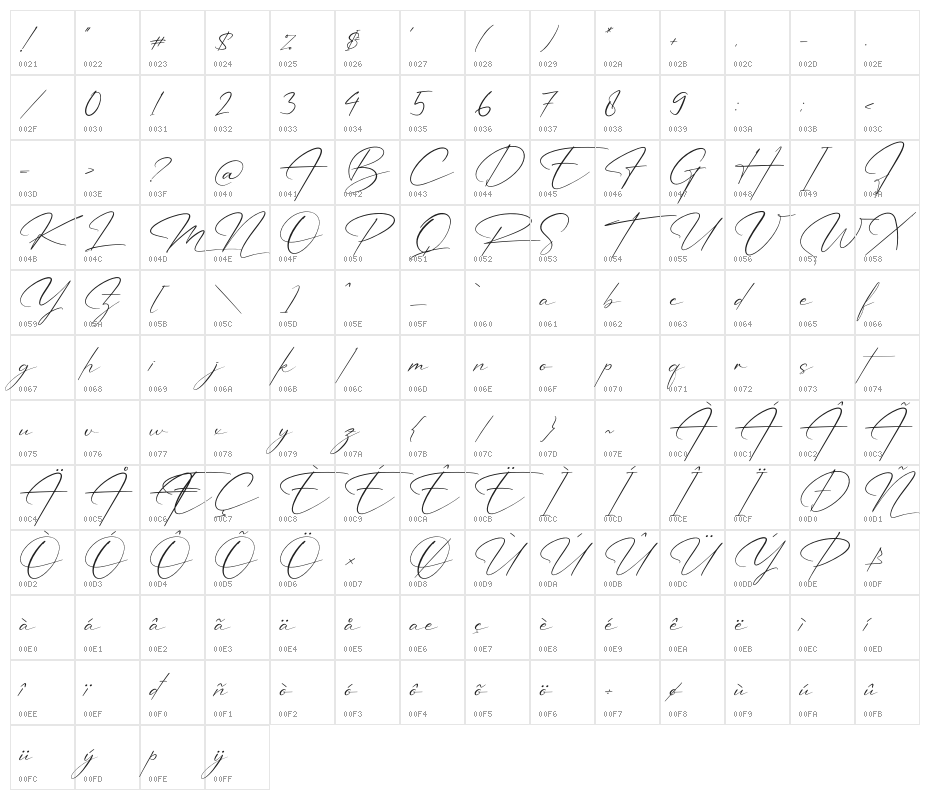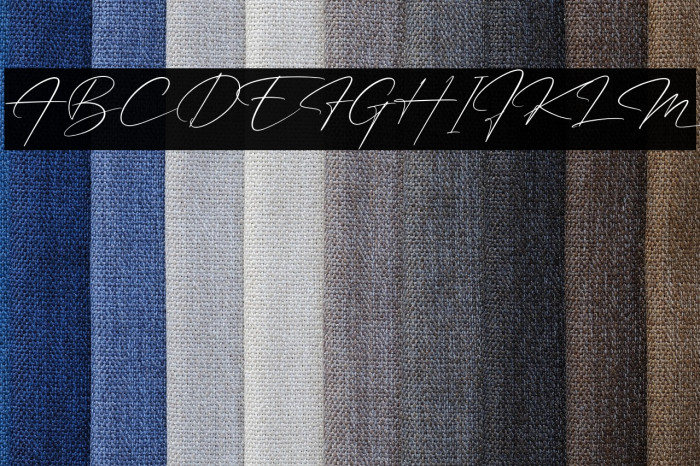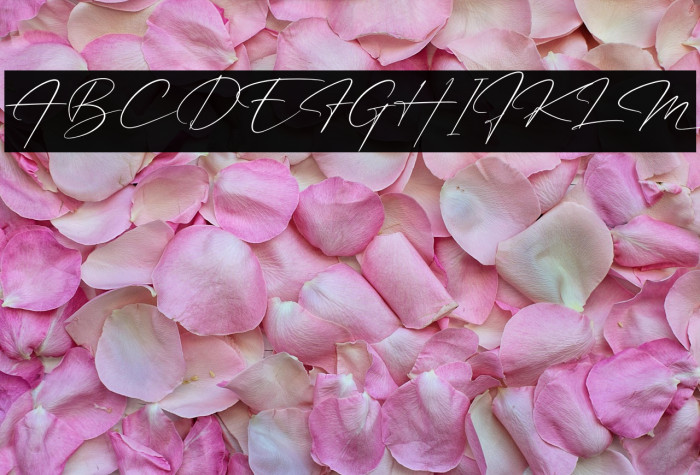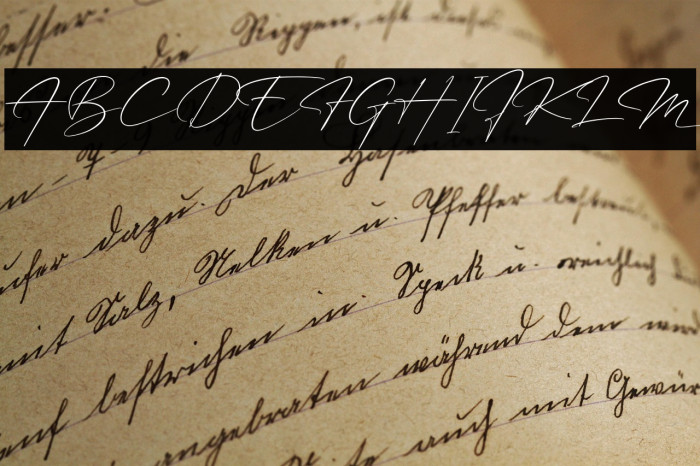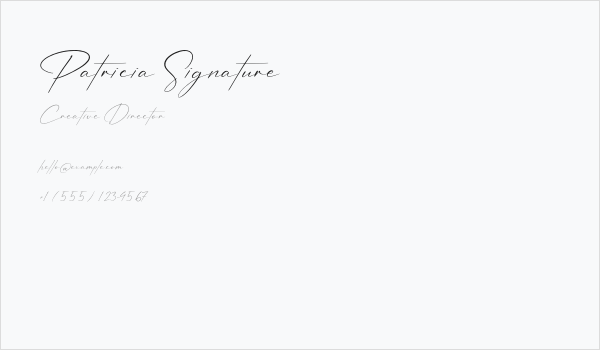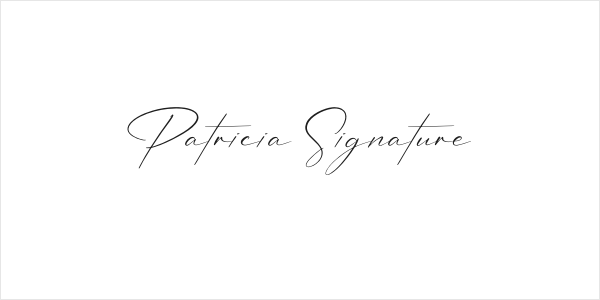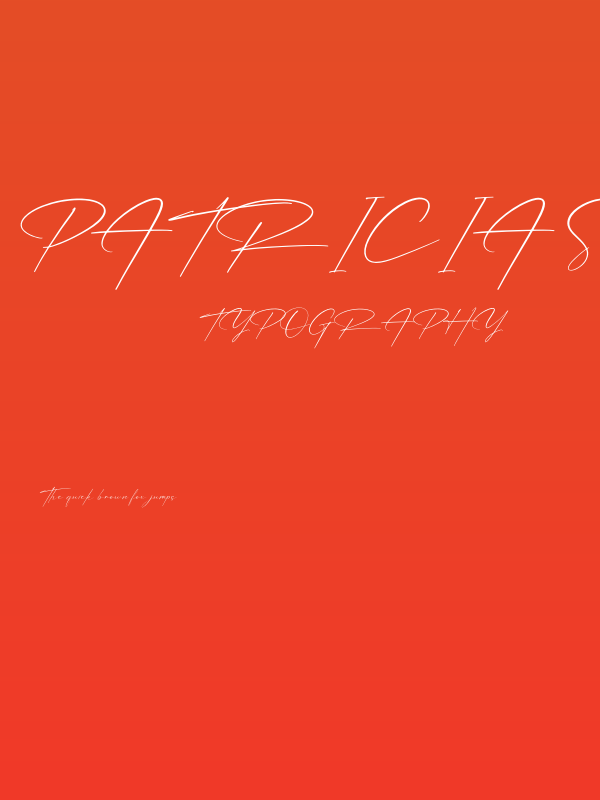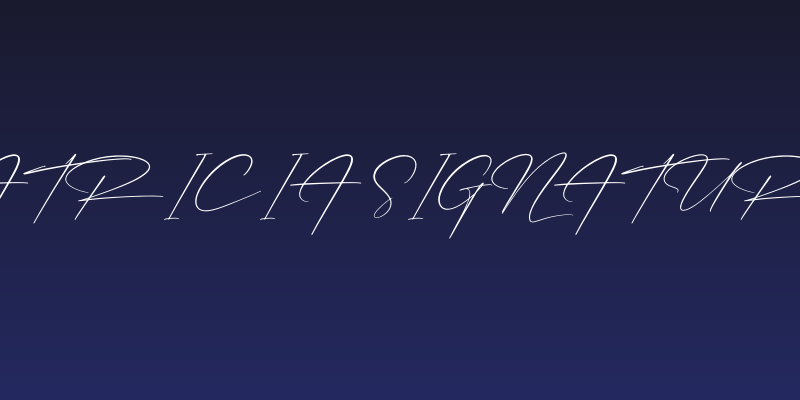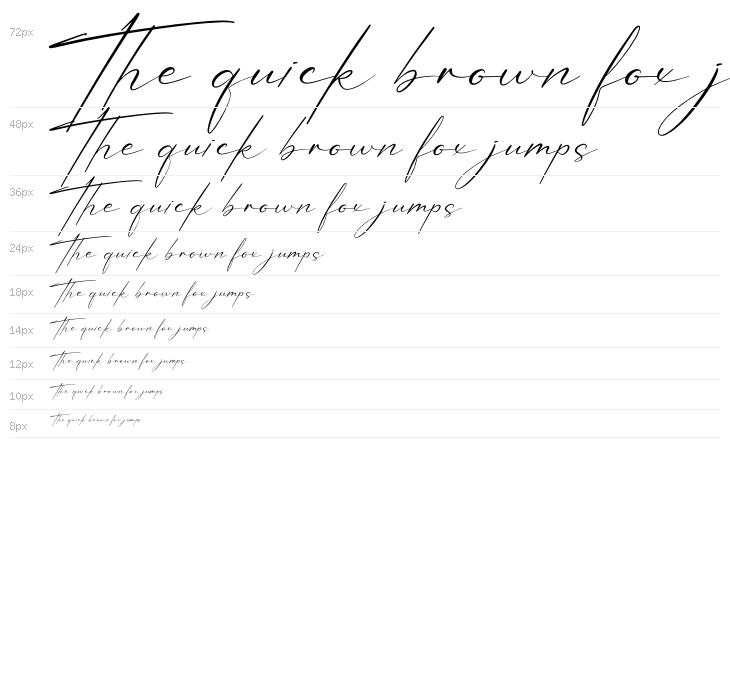
Patricia Signature Font
Patricia Signature Description
This font exudes elegance and sophistication with its fluid, cursive style. The letters are connected seamlessly, creating a natural flow that mimics the strokes of a handwritten signature. The uppercase letters are slightly more elaborate, with graceful loops and swirls, while the lowercase letters maintain a consistent, smooth rhythm. The numerals are clear and distinct, maintaining the same cursive flair. Special characters are thoughtfully designed to match the overall aesthetic, making this font versatile for various uses. Its delicate lines and artistic flair make it perfect for projects that require a personal touch.
| Overall Style | Elegant, Handwritten |
| Proposed Projects | Ideal for wedding invitations, personal branding, greeting cards, and elegant logos. |